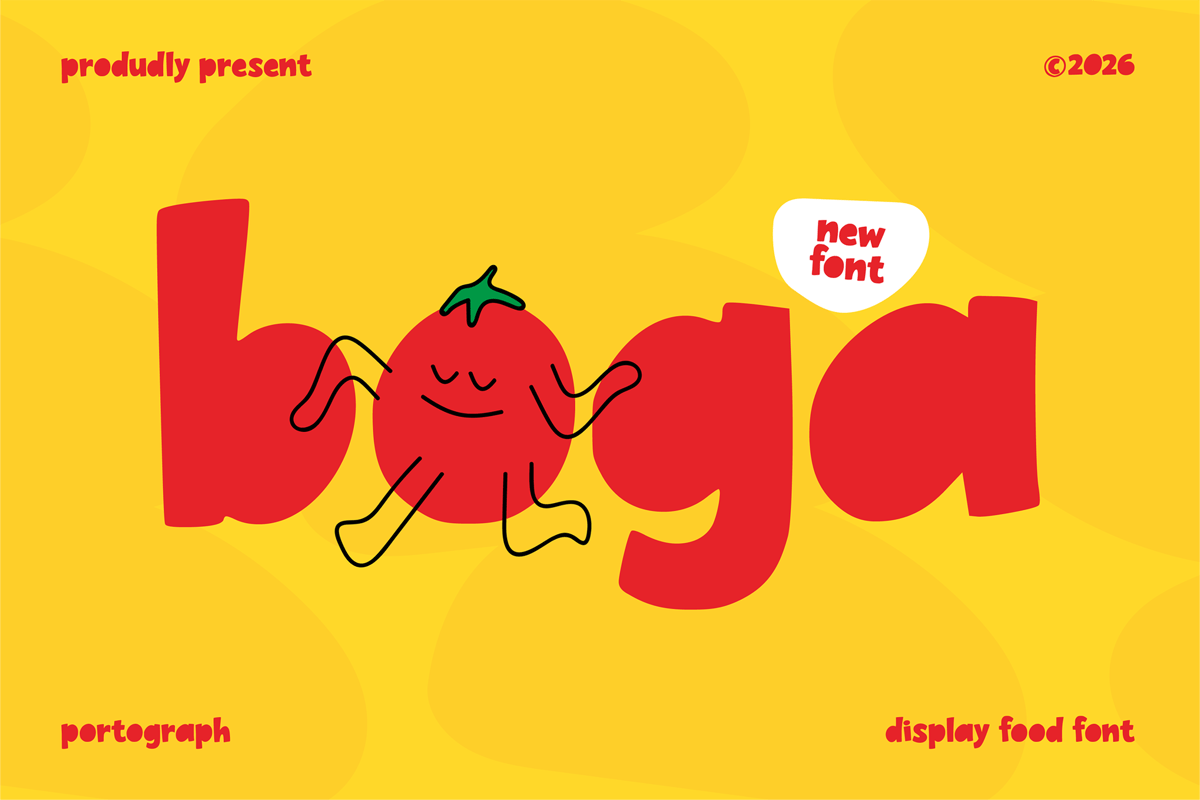
Boga - Food Font
Bring infectious energy and playful charm to your designs with this bold, rounded display font that radiates fun and personality. Boga features quirky letterforms and vibrant character that delivers cheerful, eye-catching appeal for any creative project. Its rounded shapes and friendly aesthetic create strong visual impact while maintaining an approachable feel that connects with audiences. Drawing inspiration from fast food branding and contemporary playful visuals, this typeface excels in head...